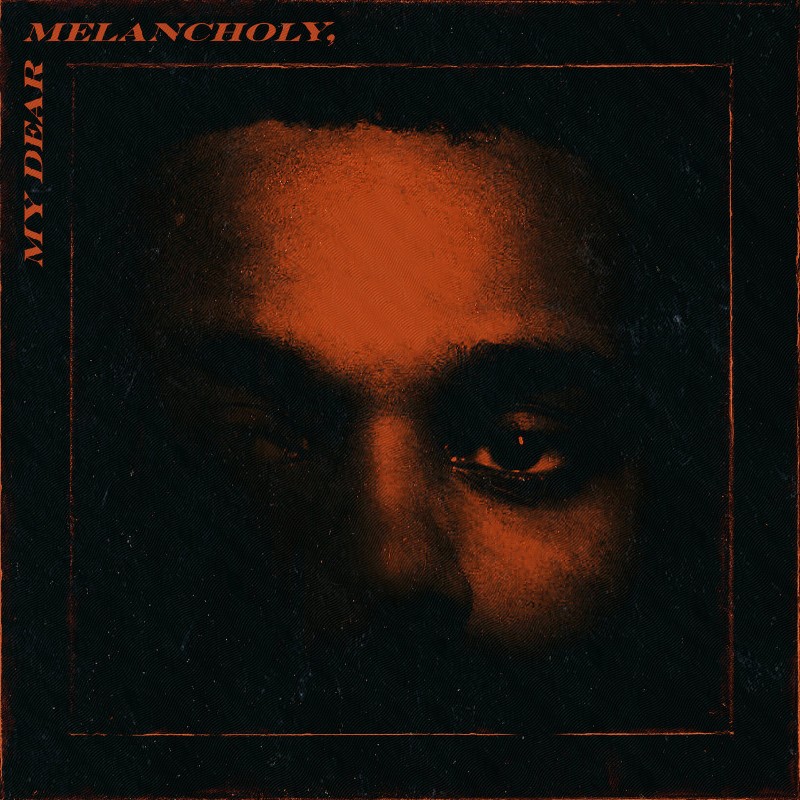
My Dear Melancholy Font
Fonts in UseMy Dear Melancholy is an EP by Canadian singer The Weeknd, released in 2018. The album explores themes of heartbreak, loss, and regret through its six tracks of moody R&B and atmospheric production.
The album cover artwork features an italicized Engravers Bold from Monotype, designed by Robert Wiebking in 1899. The font imitates 19th-century copperplate and steel plate engravers' calligraphy styles with wide capital letters.